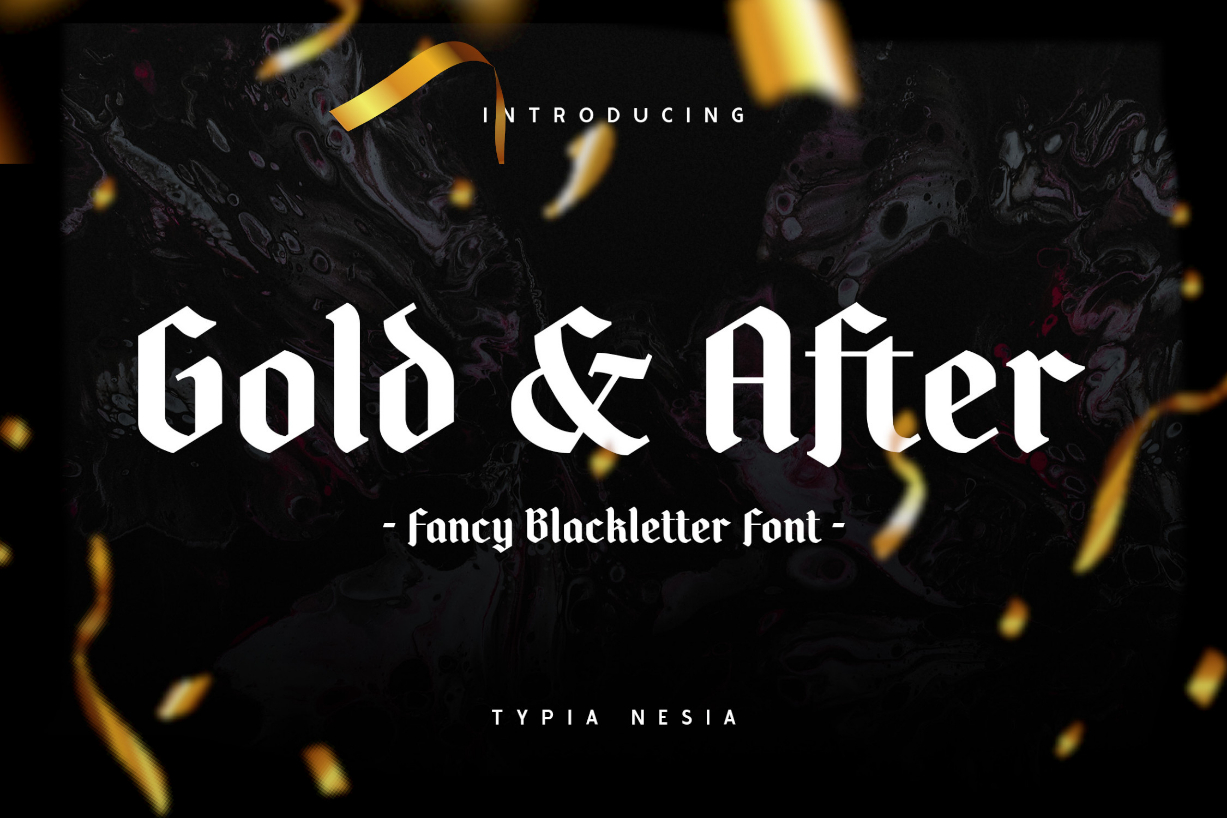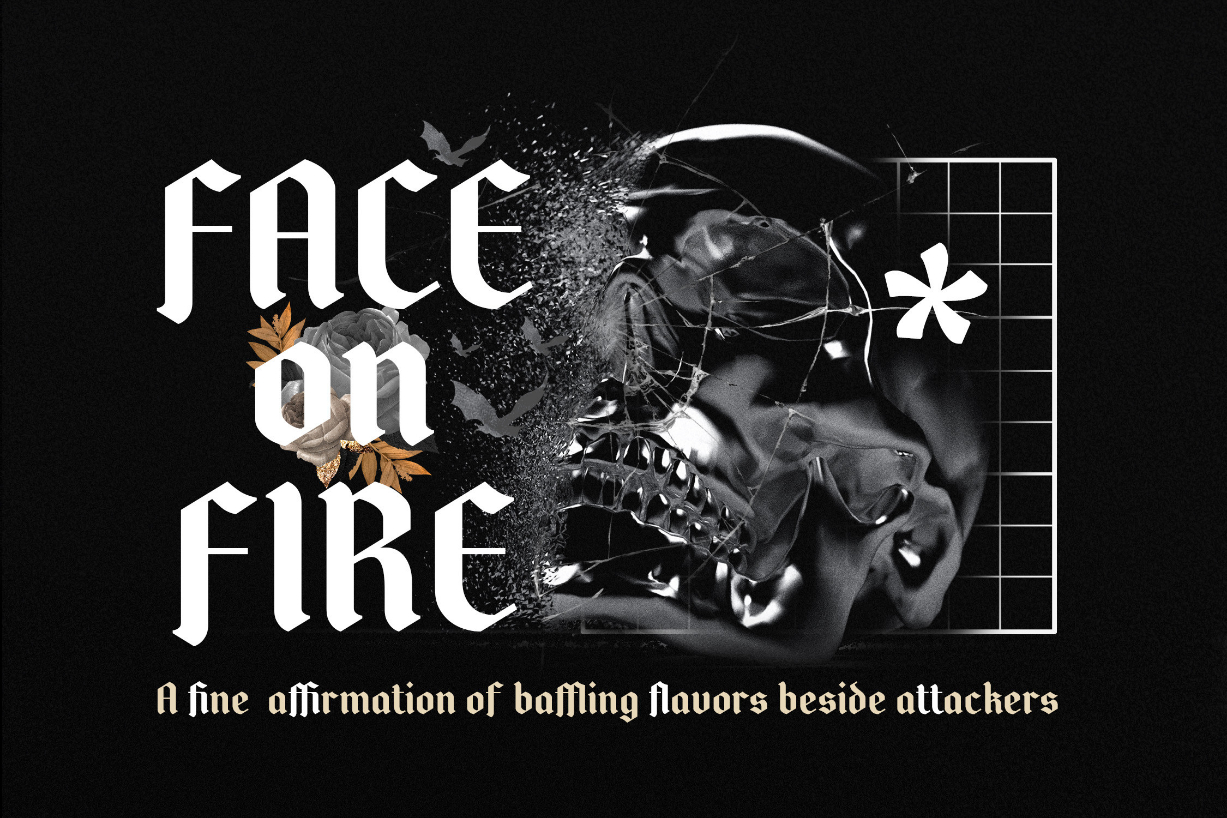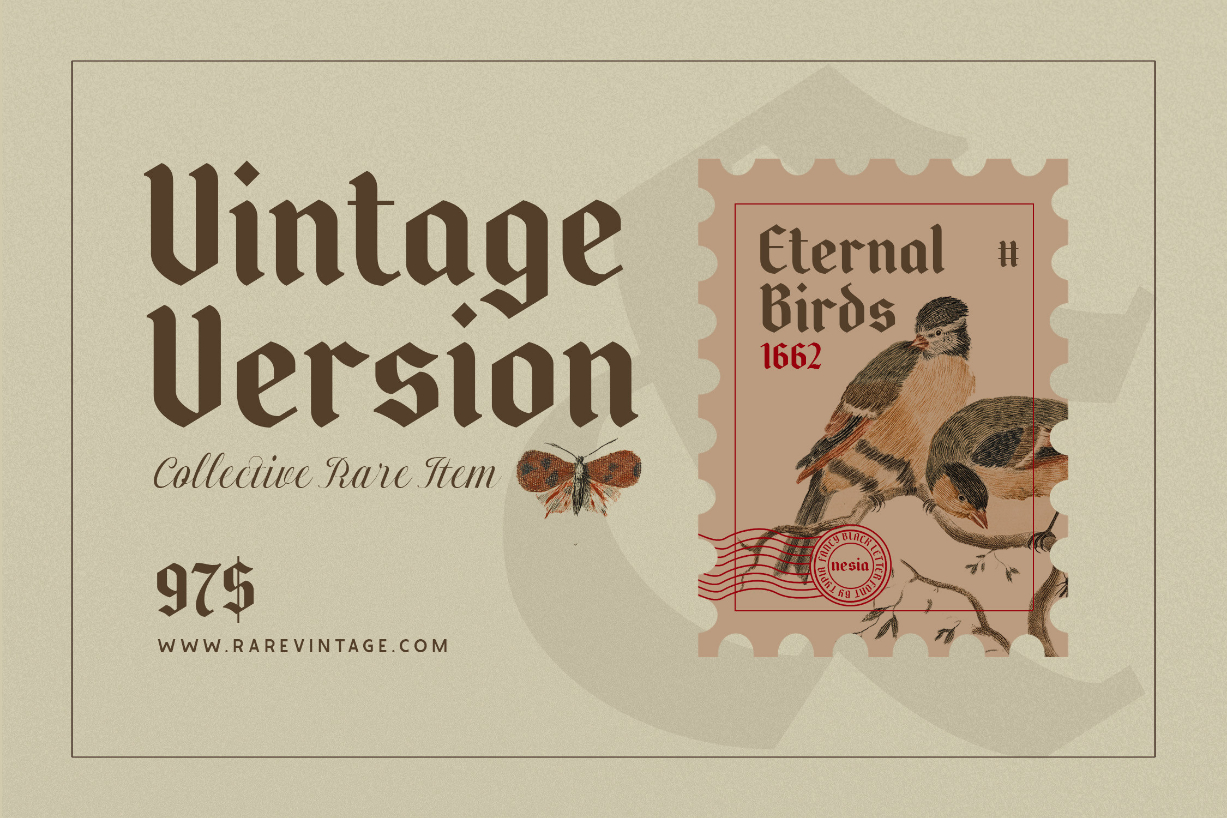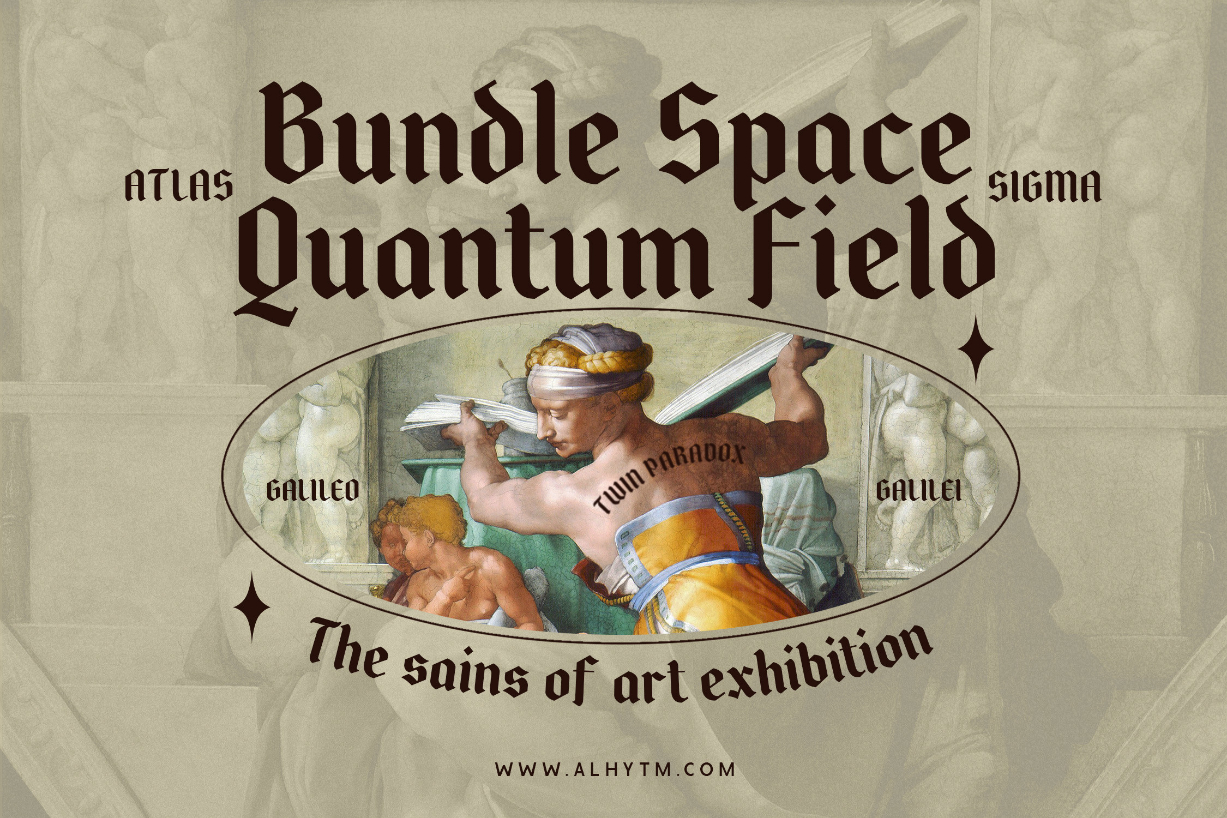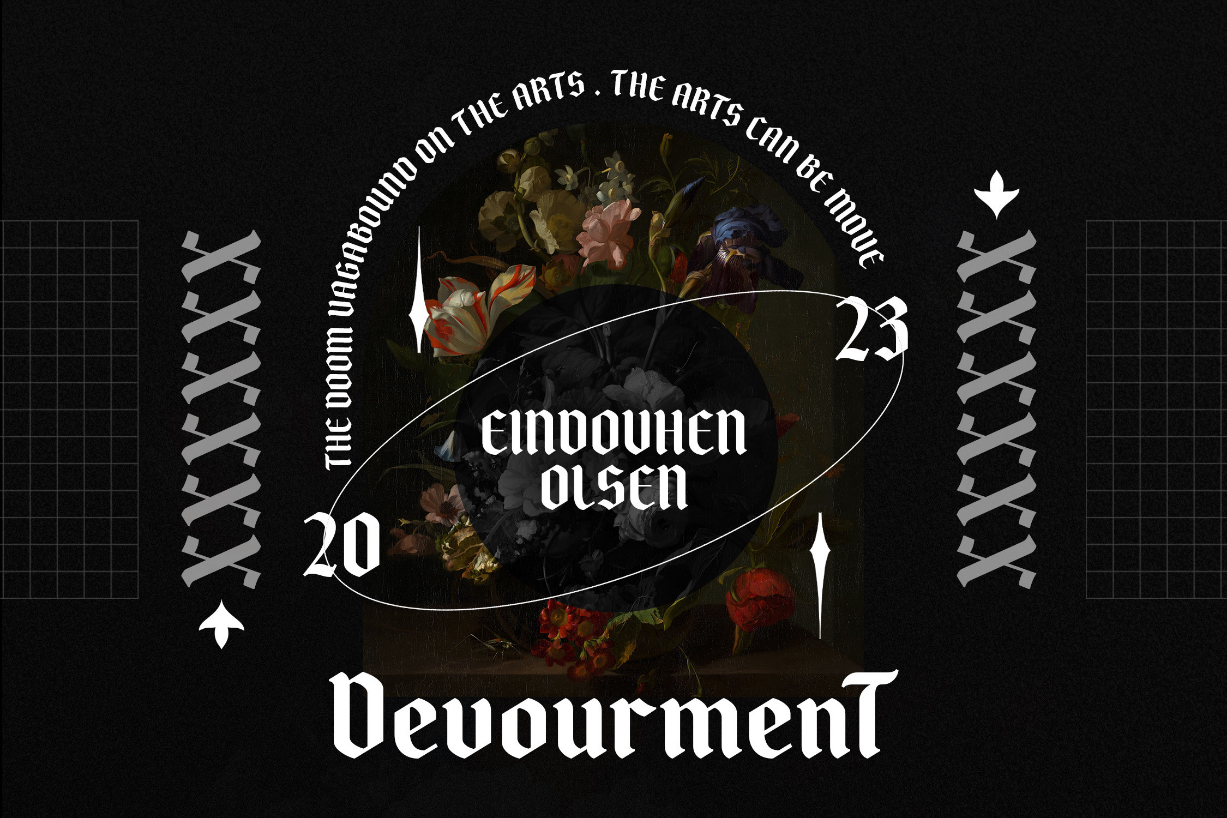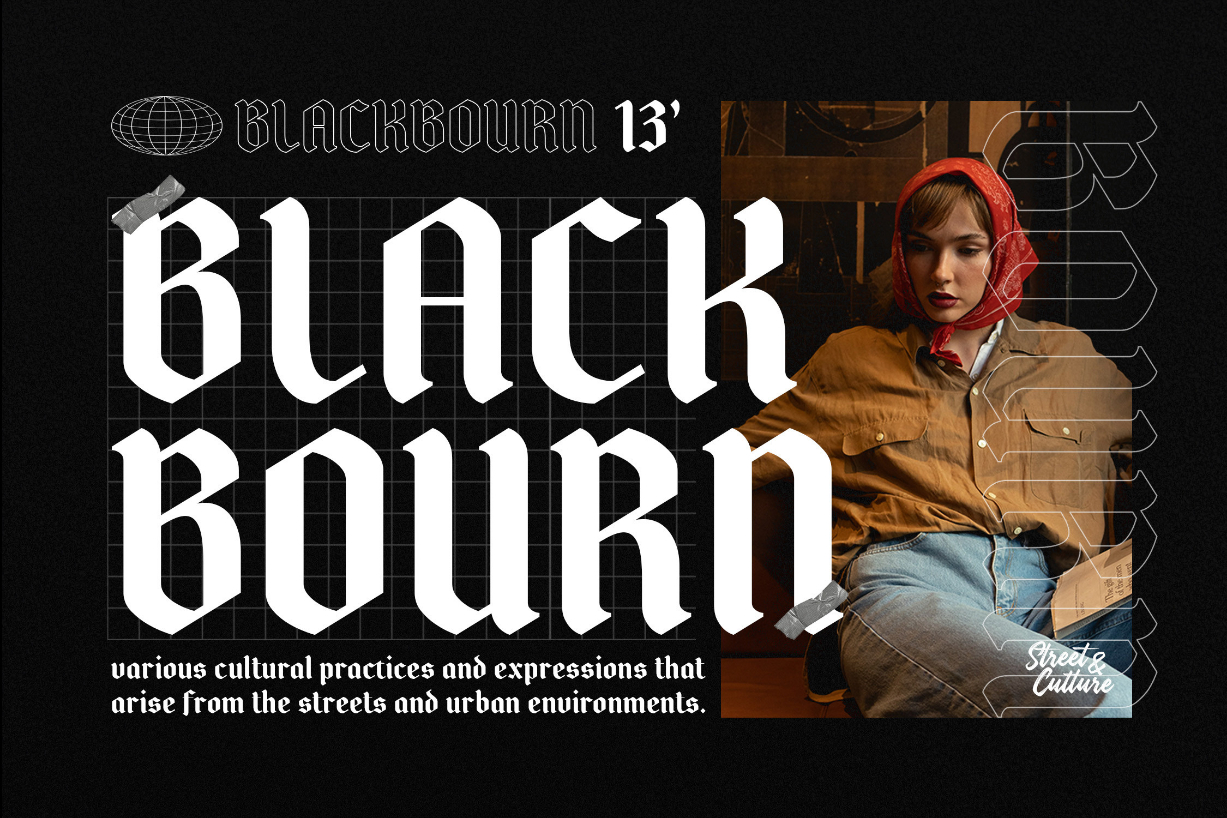
About Gold and After Font
Experience the vintage elegance of Gold and After in your designs today!
Gold and After is a blackletter typeface that embodies the vintage and classic style of typography. This font is perfect for designs that require a touch of traditional elegance and old-world charm. Its distinctive features, such as the sharp edges and bold lines, make it ideal for applications such as branding, logos, packaging, headlines, and posters.
Suitable for any design needs: logo, branding, modern advertising design, Halloween, gothic design, apparel, hardcore music, animation or movie, logos, poster quote, book/cover titles, editorial design, websites/blogs, cards, custom mugs, pillows, t-shirts, and any gothic hand-lettered needs.